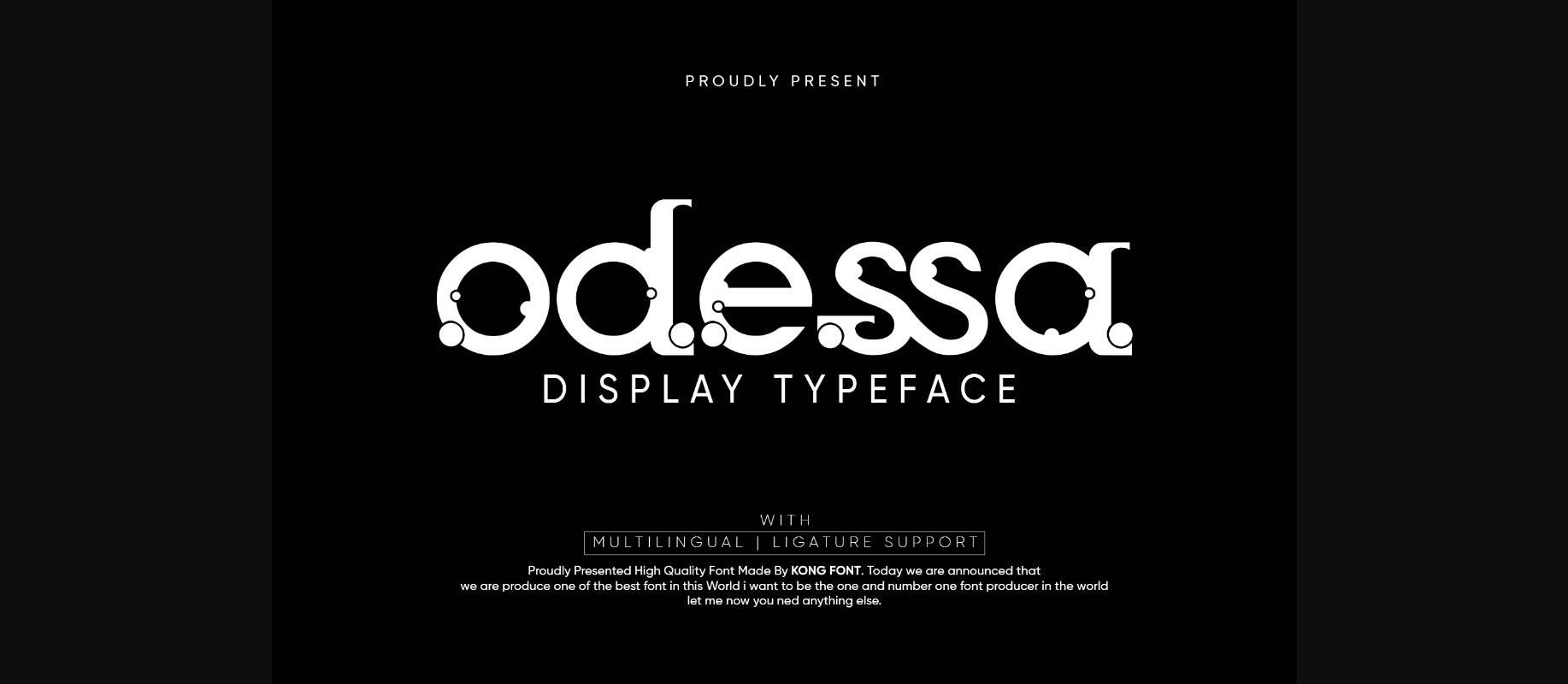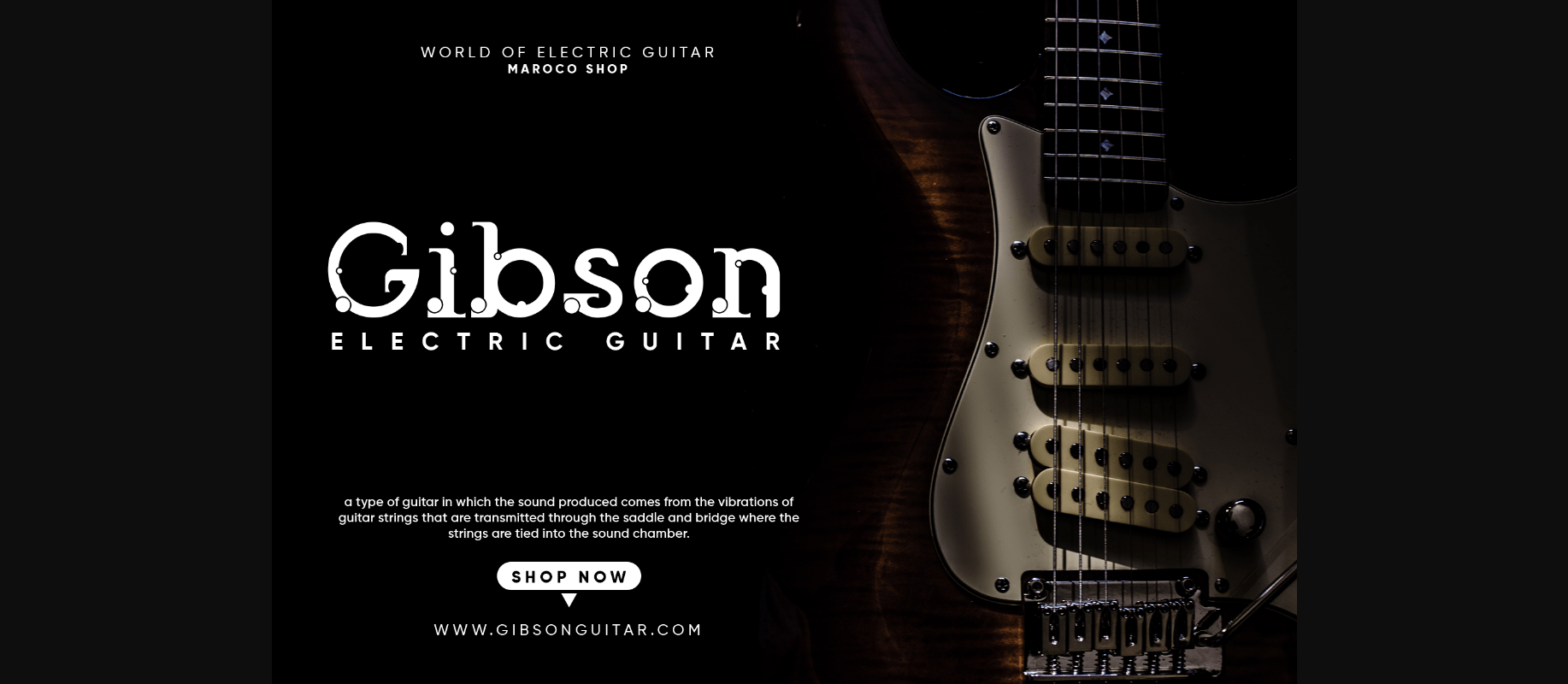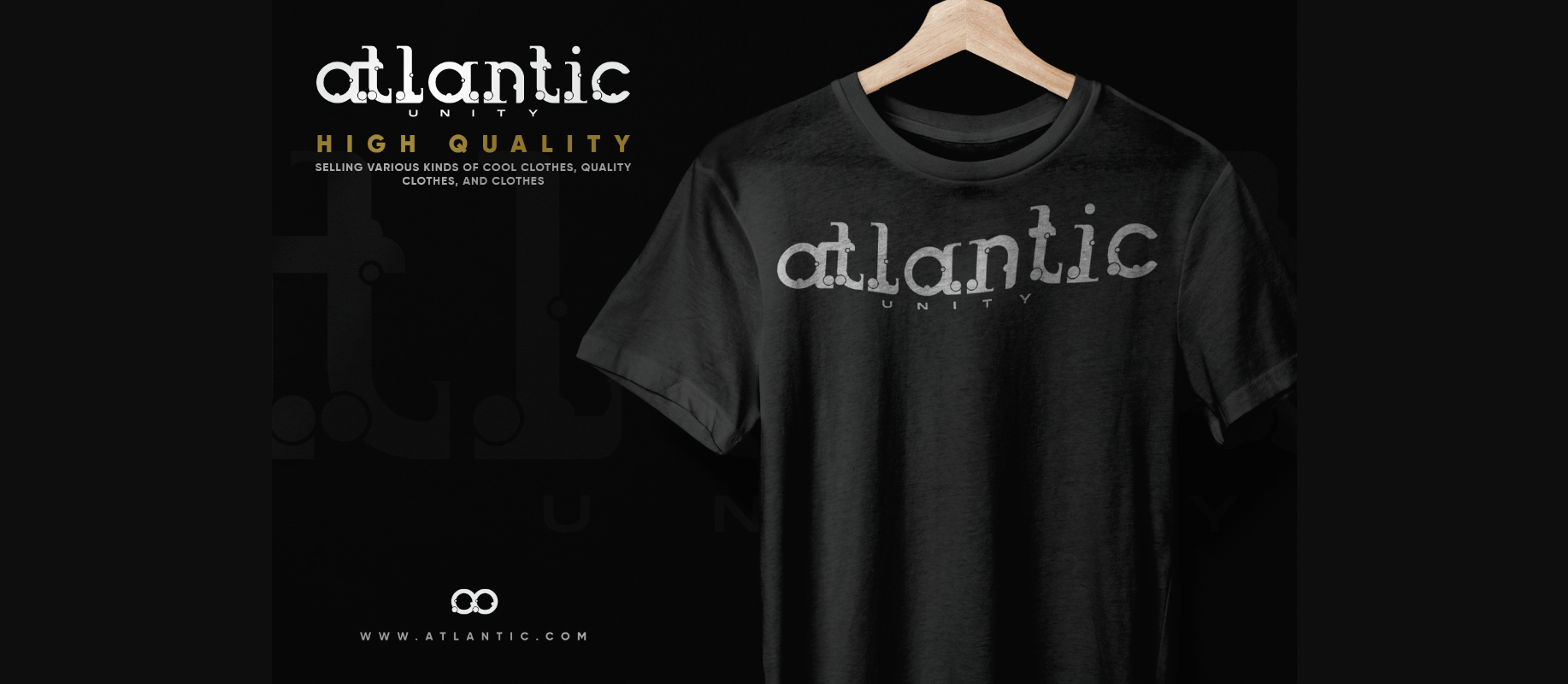
About Odessa Font
Odessa is a modern and playful decorative font. It’s great for crafters and designers. Compatible with tools such as Photoshop and Silhouette design studio. Its playfulness can make it great for creative projects.